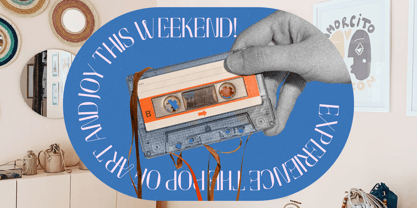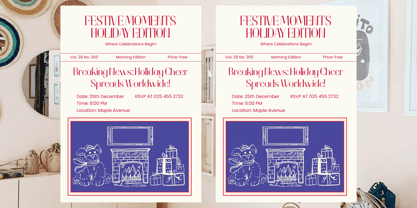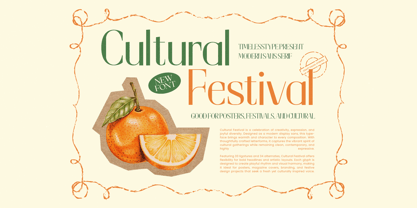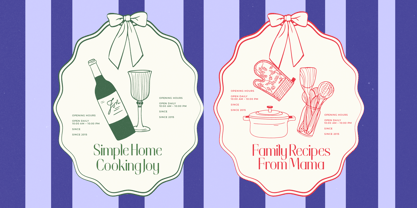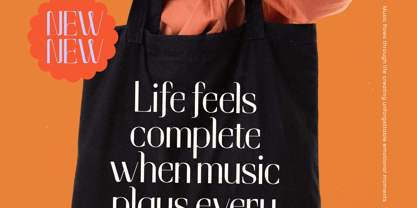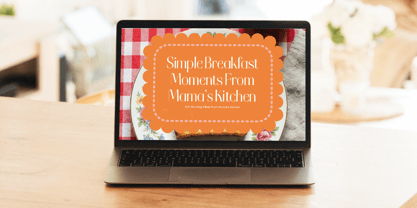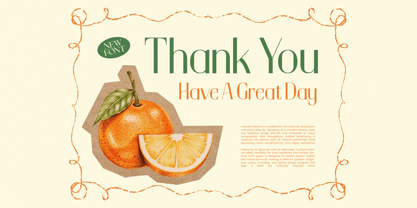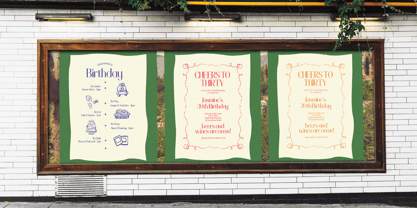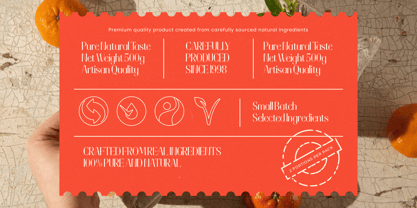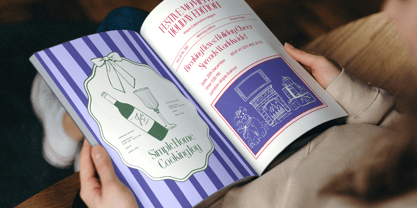
Cultural Festival
by Timelesstype Studio
The Cultural Festival Font Family was designed by Heru Utama Putra and published by Timelesstype Studio. Cultural Festival contains 2 styles and family package options. More about this family
Cultural Festival is a modern sans serif designed to capture the vibrant energy of artistic celebrations, blending clean geometry with warm, expressive details that make every composition feel lively yet refined. Built with 33 ligatures and 34 alternates, this display typeface delivers strong versatility—perfect for bold posters, cultural event branding, magazine layouts, creative packaging, and editorial concepts that need contemporary elegance with a playful twist. Its smooth curves, stylish proportions, and rhythmic letterforms create a visually engaging voice that feels both fresh and culturally rich, making it an ideal choice for designers who want a modern font with character, personality, and standout visual charm.